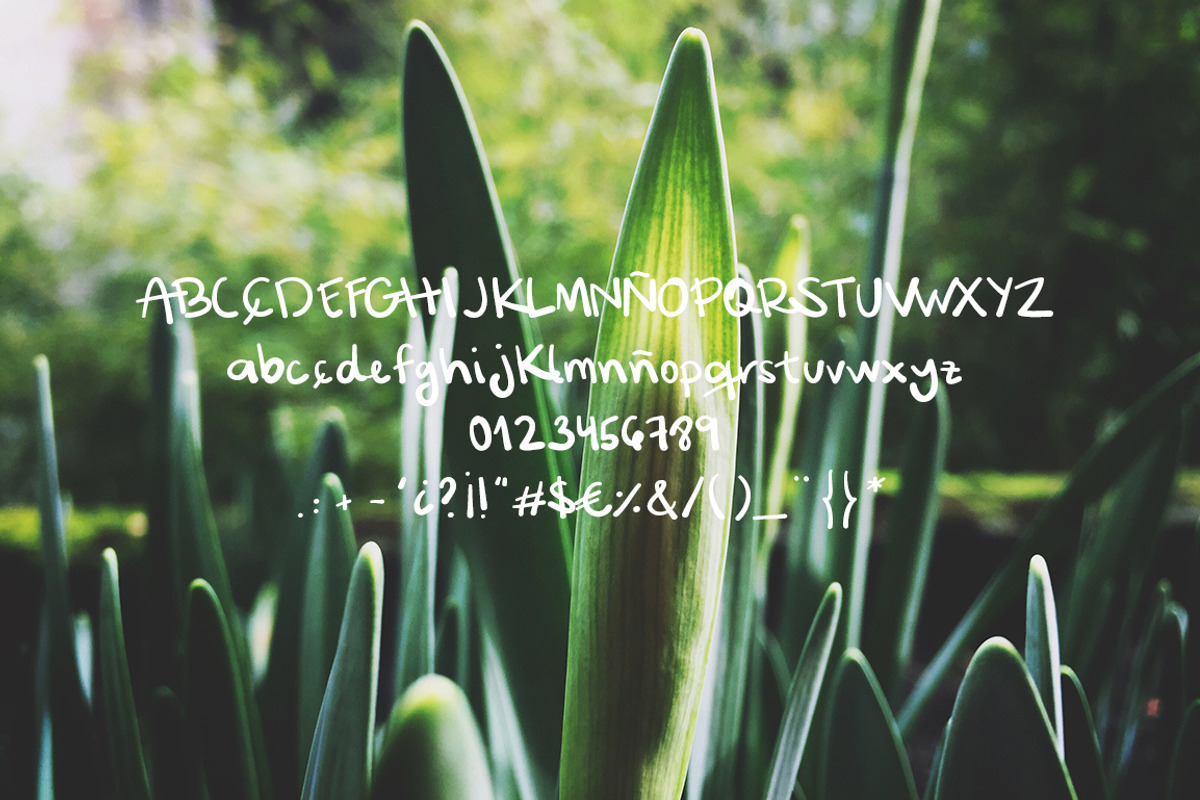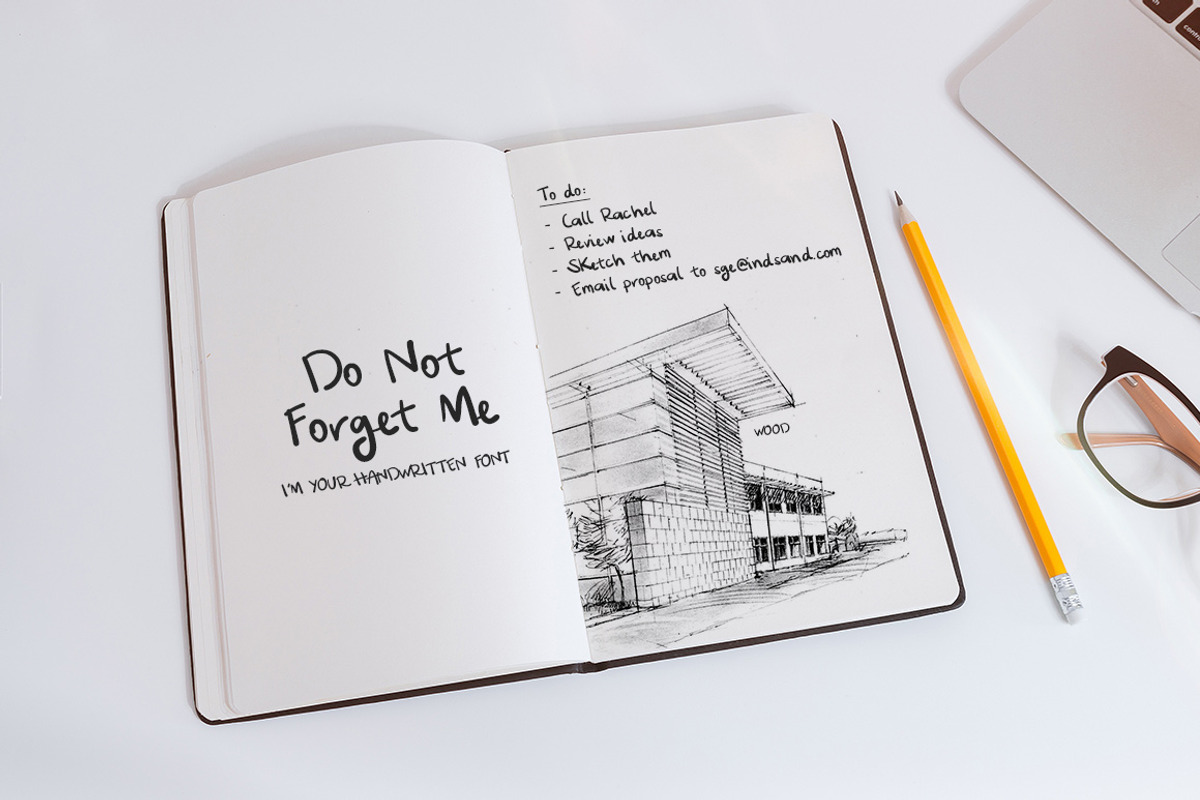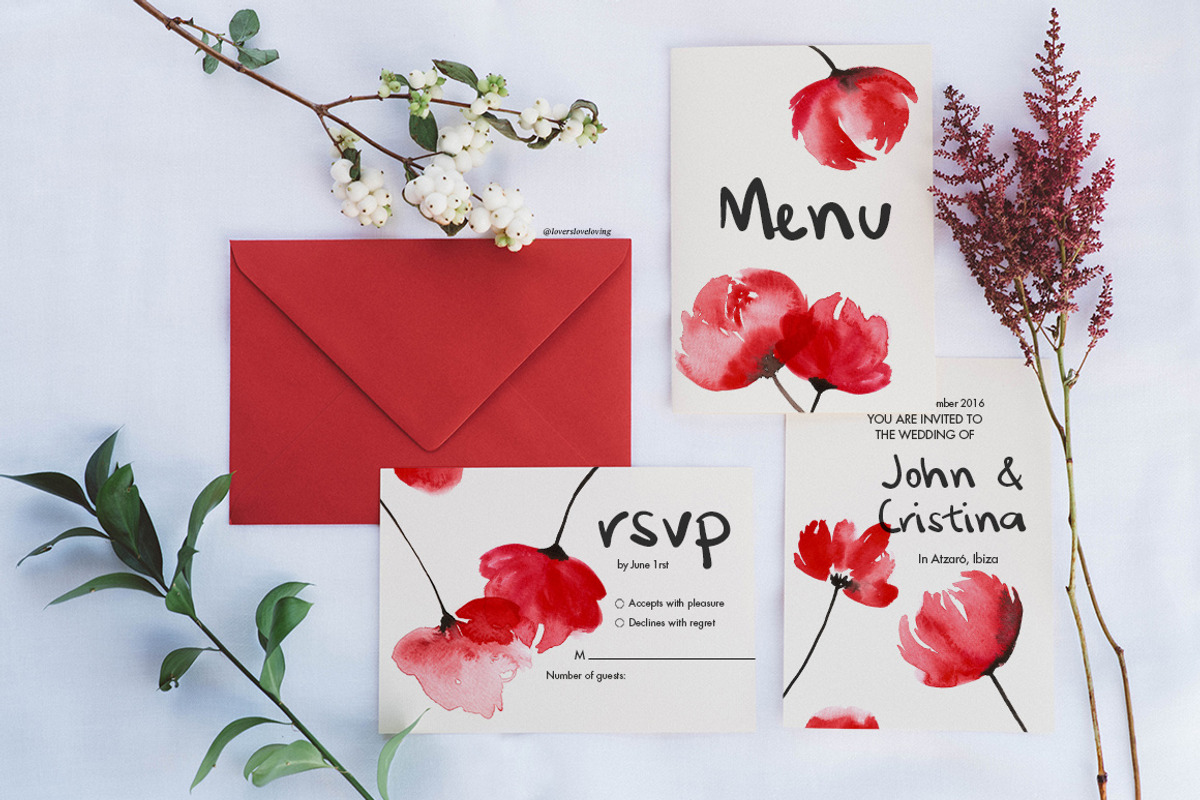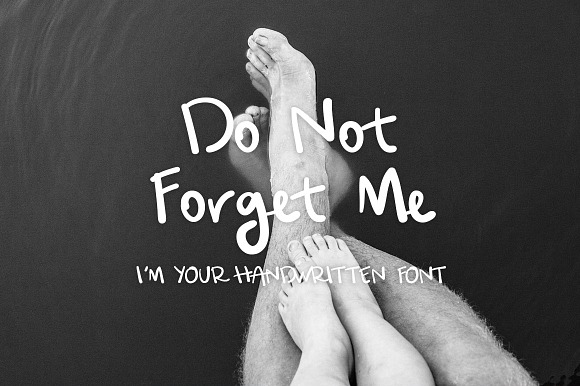
Hand Written Font - Do Not Forget Me
Do Not Forget Me is a hand written font, perfect to use in any design project you have to imitate manual calligraphy.
I was inspired by post it notes, and that's why this name came to my mind :)
This handwritten script font contains upper & lowercase characters, numerals and a large range of punctuation, with special characters from languages such as Catalan, Spanish, Danish, Sweedish, Norwich, Finish, Check & Polish.